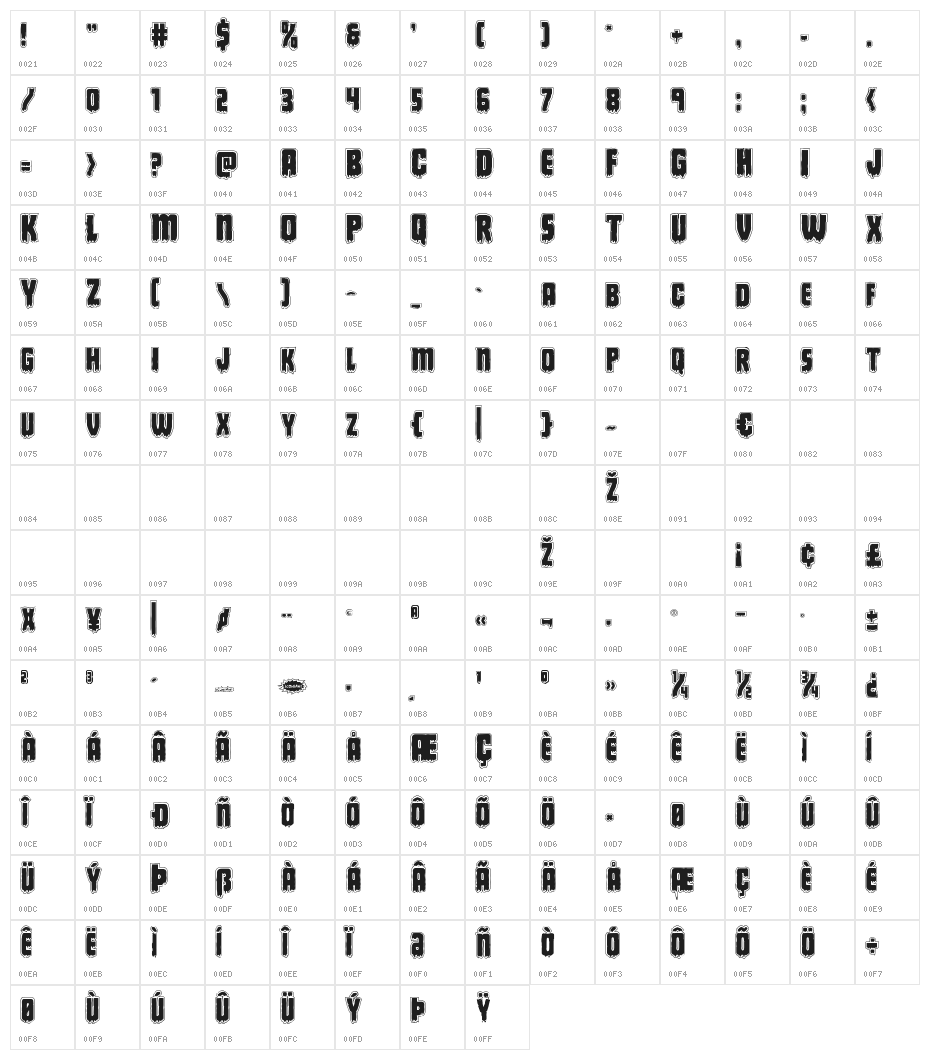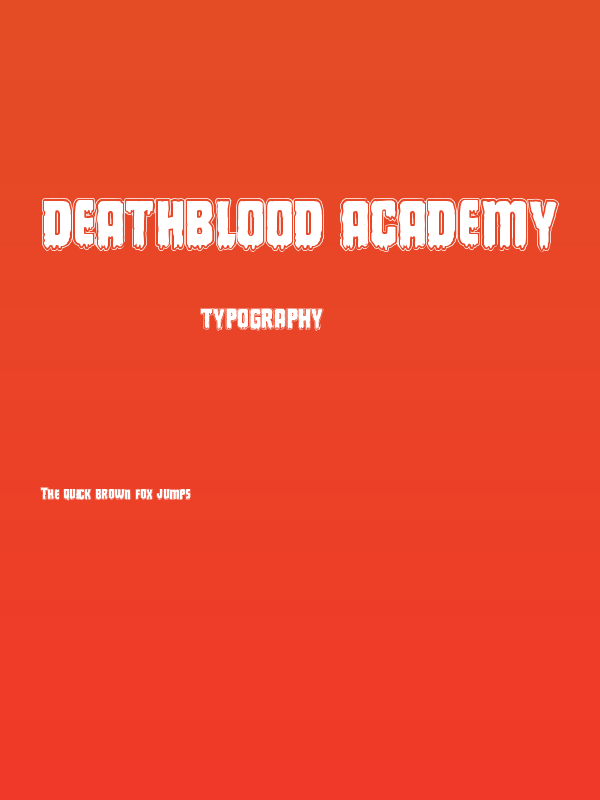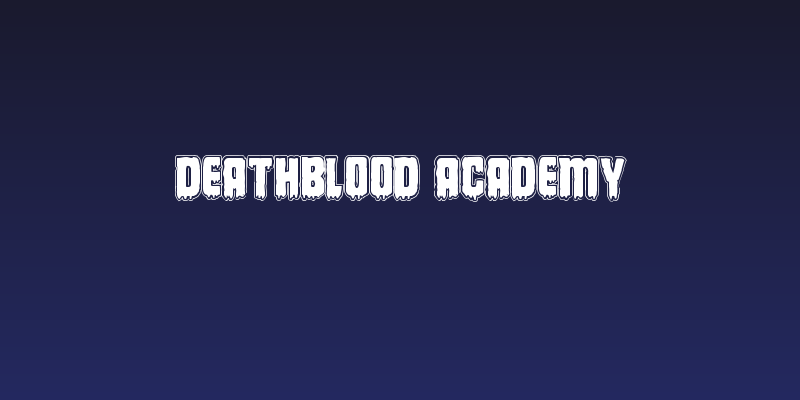
Deathblood Academy Font
Deathblood Academy Description
This font features a bold, dramatic style with a horror-inspired aesthetic. The characters are heavily outlined, creating a striking contrast between the thick, dark outlines and the lighter interior. The edges of the letters are irregular and jagged, giving a dripping or melting appearance that enhances its eerie and unsettling vibe. This font is highly decorative, making it ideal for thematic designs that require a strong visual impact. The uppercase and lowercase letters maintain a consistent style, and the numerals and special characters are equally bold and distinctive.
| Proposed Projects | Ideal for Halloween-themed designs, horror movie posters, spooky event invitations, and any project requiring a chilling, dramatic typeface. |